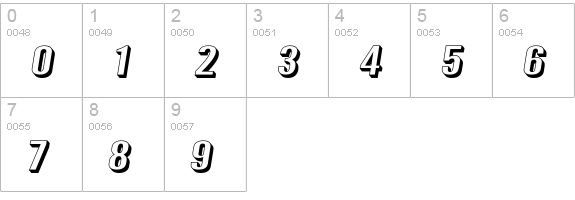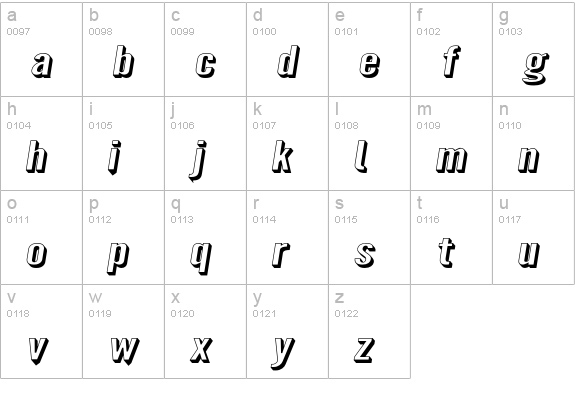
Warsaw Gothic SuperExtended Shadow Oblique is a distinctive, italic variant in the Warsaw typeface family \xE2\x80\x94 well suited to design and typography projects.
Introducing the captivating Warsaw Gothic SuperExtended Shadow Oblique font, a striking typeface that exudes an air of mystery and intrigue. With its bold, elongated strokes and dramatic shadow effect, this font effortlessly commands attention and adds a touch of gothic elegance to any design project. Designed with creativity and versatility in mind, Warsaw Gothic SuperExtended Shadow Oblique font is perfect for a wide range of applications. Whether you're designing a poster, logo, book cover, or website, this font's unique personality and distinctive style will elevate your design to the next level. The captivating nature of Warsaw Gothic SuperExtended Shadow Oblique font lies in its ability to effortlessly combine classic gothic elements with a modern twist. Its carefully crafted curves and sharp angles create a harmonious balance between tradition and innovation, making it an ideal choice for both traditional and contemporary designs. But what makes this font truly exceptional is that it is freely available to download at FontsMarket.com. Yes, you read that right! The creators of Warsaw Gothic SuperExtended Shadow Oblique font believe in the power of accessibility and have made it accessible to everyone, regardless of budget or design expertise. Now, you can enhance your projects with this stunning font without breaking the bank. So, why wait? Unleash your creativity and let Warsaw Gothic SuperExtended Shadow Oblique font transform your designs into captivating works of art. Download it for free today at FontsMarket.com and embark on a design journey that is anything but ordinary.